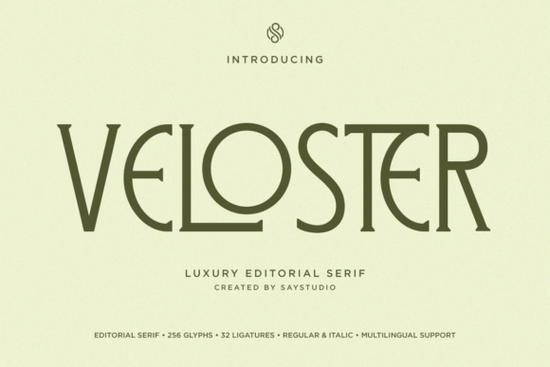
Looking for a serif font that brings quiet confidence and refined style to your designs? Veloster Font is a thoughtful choice for anyone creating luxury branding, editorial layouts, or premium visuals. It’s not flashy, but it doesn’t need to be its strength lies in subtle elegance and balanced letterforms that feel timeless.
What kind of projects works best with Veloster?
Veloster shines where sophistication matters. Whether you're designing a fashion label logo, crafting wedding invitations, setting type for a boutique skincare brand, or building a high-end hotel identity, this font adds a layer of polish without overpowering the message.
- Luxury logos – The clean structure and artistic ligatures give brands a distinctive, memorable presence.
- Editorial layouts – Perfect for magazines, lookbooks, or digital publications aiming for a high-end feel.
- Premium packaging – Ideal for cosmetics, jewelry, or wellness products where the text needs to match the quality of the item inside.
- Print-on-demand items – Works beautifully on mugs, tote bags, and stationery when you want something that feels special.
How does Veloster stand out from other serif fonts?
While many serif fonts lean into boldness or historical references, Veloster finds its voice in restraint. Its proportions are carefully tuned each letter has just enough weight to feel solid, yet remains light enough to feel graceful. The italic version flows naturally, making it great for quotes, subtitles, or elegant captions.
One detail that sets it apart is the inclusion of stylish alternates and ligatures. These aren’t gimmicks they’re subtle flourishes that make your design feel intentional. For example, the way certain letters connect in the word “luxury” creates a visual rhythm that draws the eye without distraction.
Is Veloster easy to use for beginners?
For those just starting out, try pairing Veloster with a clean sans-serif (like Galvore) for contrast. This combo keeps your design readable while still feeling elevated ideal for social media posts, email headers, or product descriptions.
For a deeper dive into premium typography, Veloster Font is worth a closer look especially if your goal is to create visuals that feel authentic and well-crafted, not rushed or generic.
Final thoughts: When to choose Veloster over other options
Choose Veloster when you want your project to feel curated not loud. It’s not about shouting “look at me.” Instead, it whispers, “this was thought through.” That kind of quiet confidence resonates with audiences who value authenticity and attention to detail.
If you’re working on anything that benefits from a calm, polished tone whether it’s a personal brand, small business, or creative side project this font gives you a strong foundation to build on.
- Try Veloster with neutral colors like cream, charcoal, or soft gray for maximum impact.
- Use the italic style sparingly great for pull quotes or section headers, but too much can overwhelm.
- Pair it with a simple background texture (like linen or parchment) to enhance its premium feel.
- Always test your final design at actual size fonts can look different on screen vs. print.
Now that you know what Veloster brings to the table, take a moment to explore how it fits into your current or upcoming projects. A single font change can shift the entire mood of your design and sometimes, less really is more.